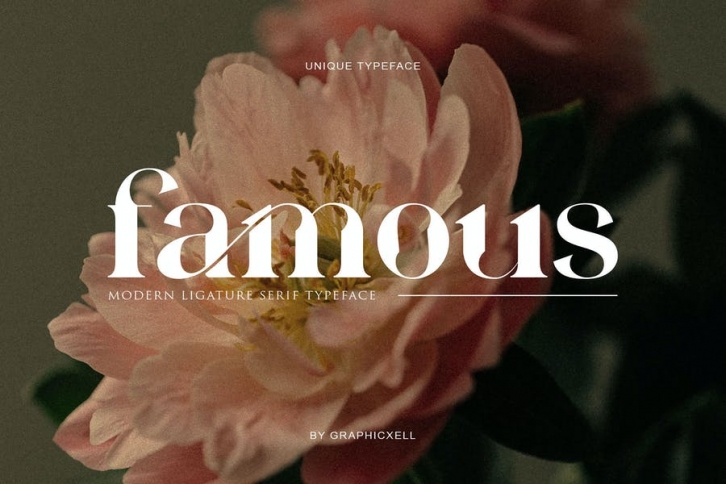
Famous Serif Font inspired by the famous minimalist logo perfect for the purposes of designing templates, brochures, videos, advertising branding, logos, invitation, layout design, elegant crafting, instagram template, fashion, film cover beauty design and more.